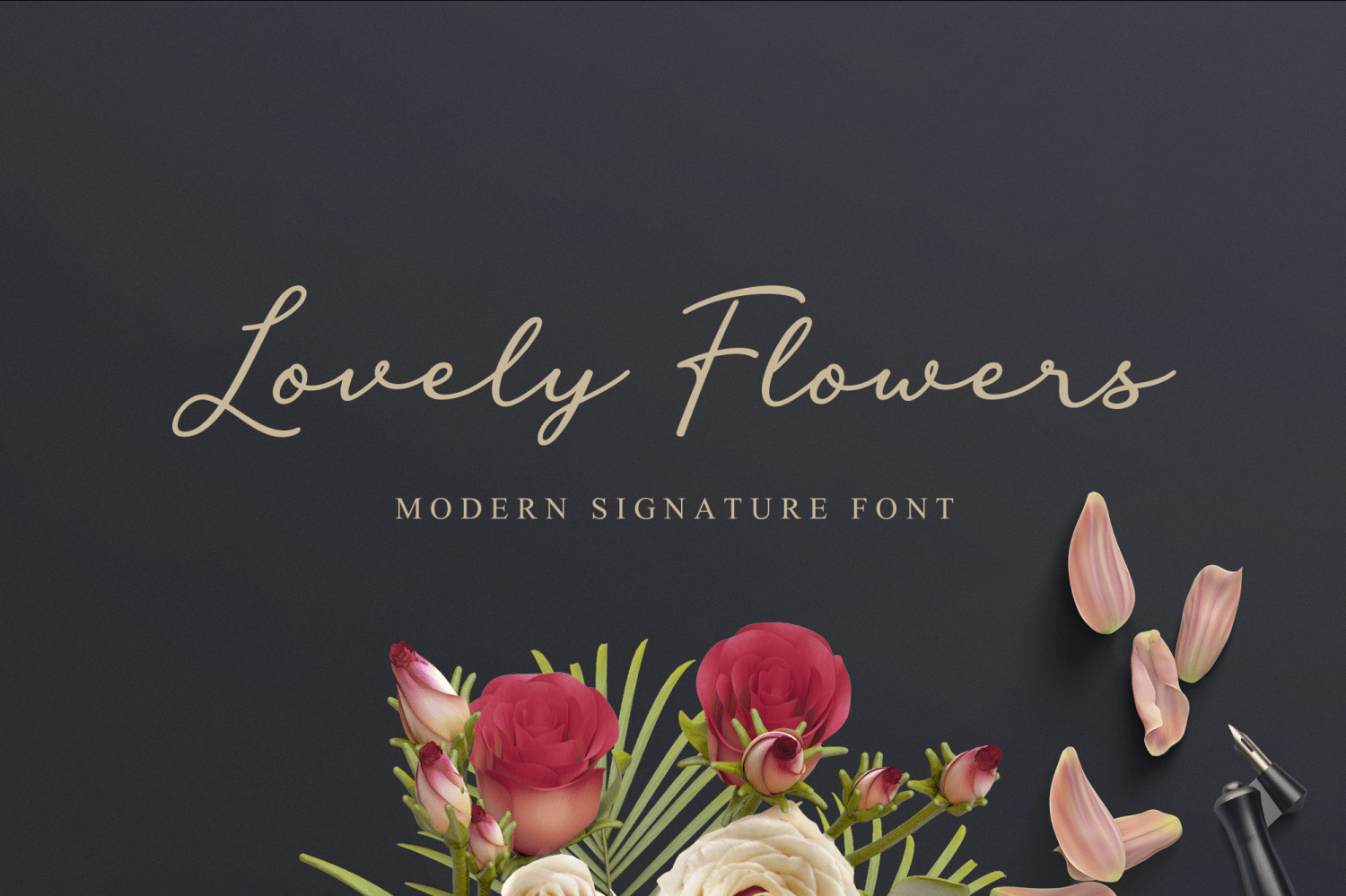
About Lovely Flowers
Lovely Flowers is modern script that perfect for photography, branding, signature. It is so beautiful and classy for your projects. This font has given PUA code (specially coded fonts). So that all the alternate characters can easily be accessed in full…